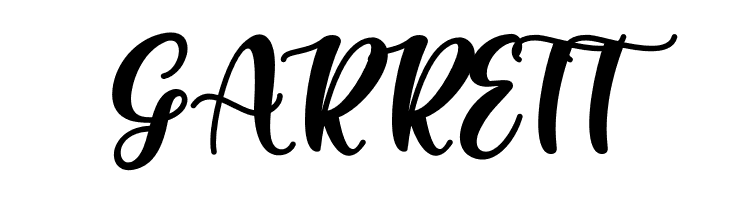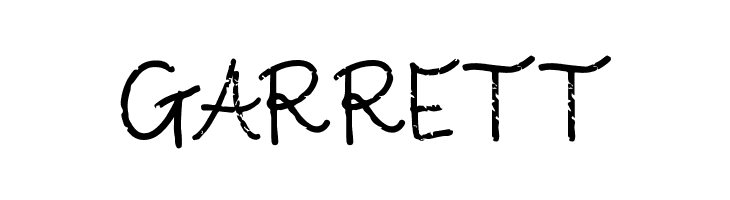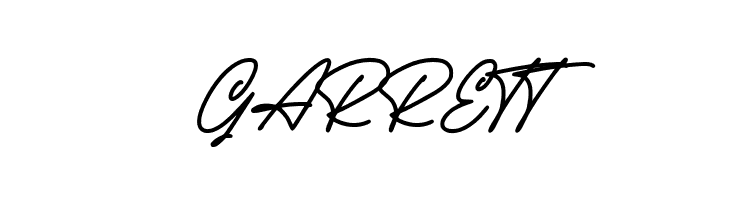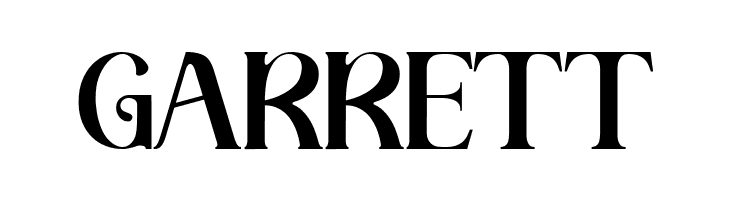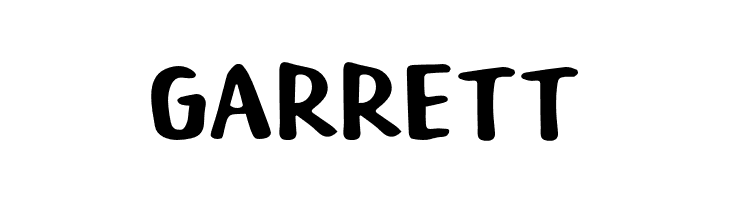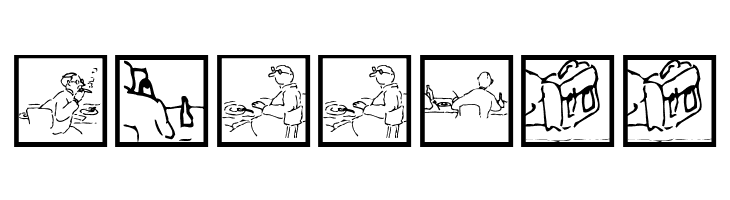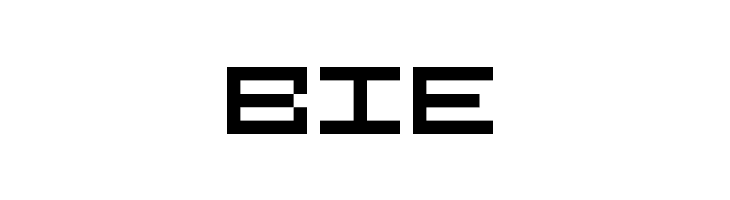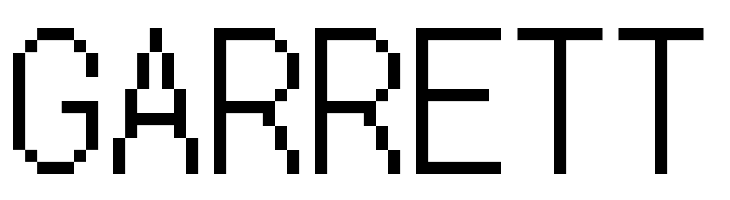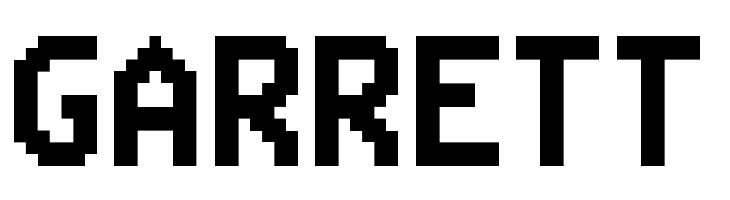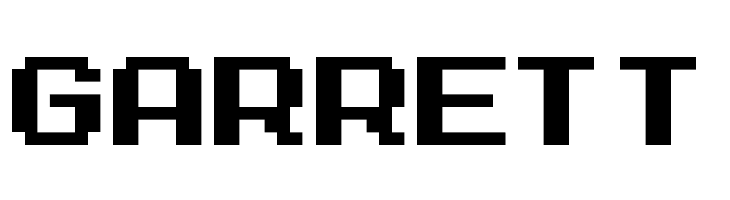
An elegant script font with flowing, interconnected letters and calligraphic style.
A fluid and elegant script font with cursive letterforms.
Hand-drawn, illustrative font made from meeting scene sketches.
A distressed, handwritten font with a rugged yet elegant style.
A bold, expressive script font with a flowing, handwritten style.
A bold, high-contrast font with elegant curves and a modern-classic blend.
A bold, pixelated font with a retro video game aesthetic.
A pixelated, monospaced font with a retro, digital aesthetic.
A playful, handwritten-style font with bold, rounded characters.